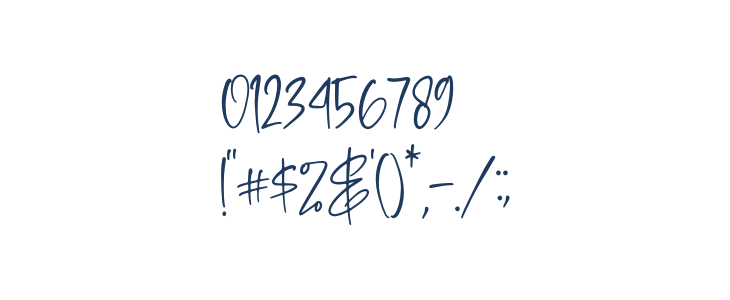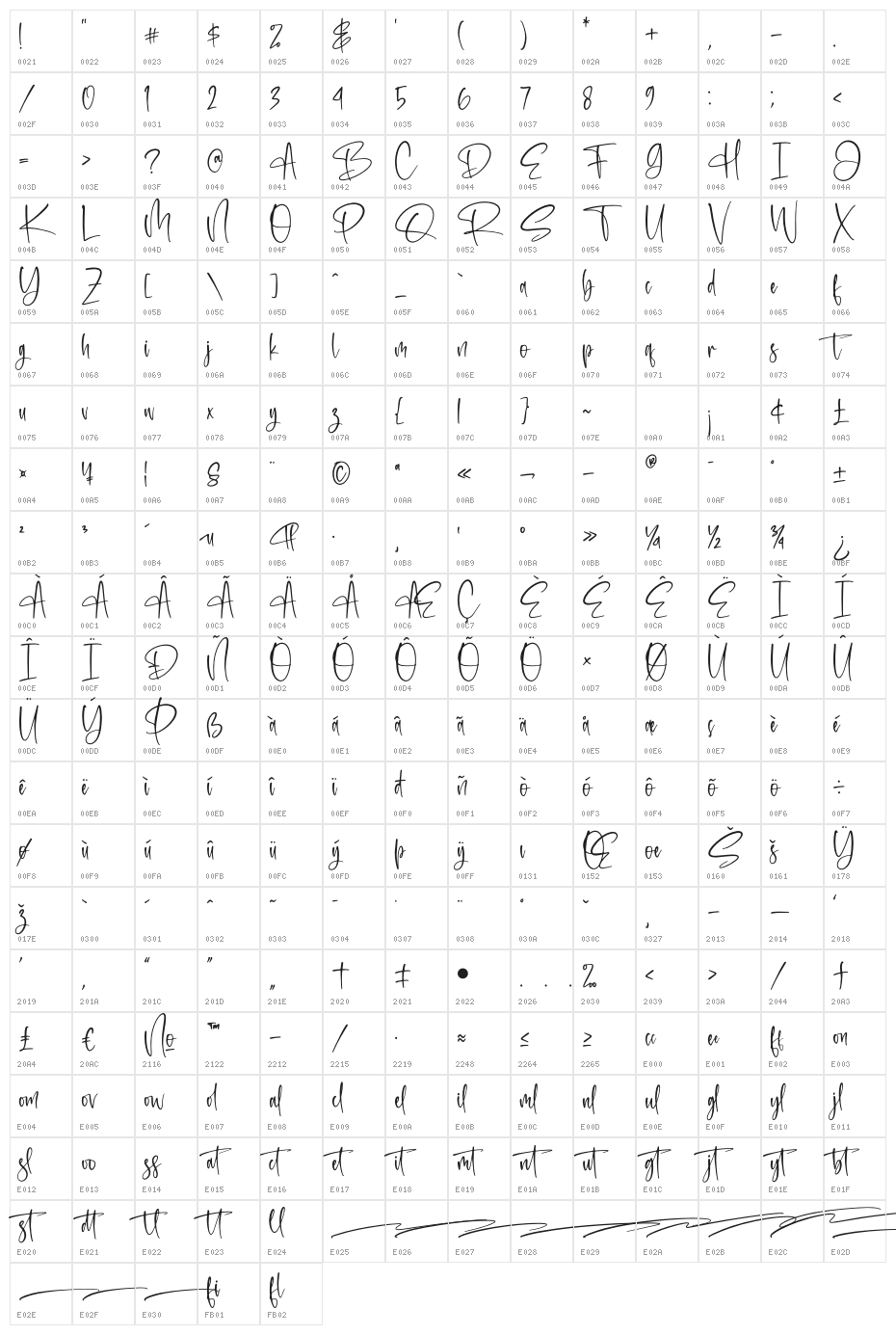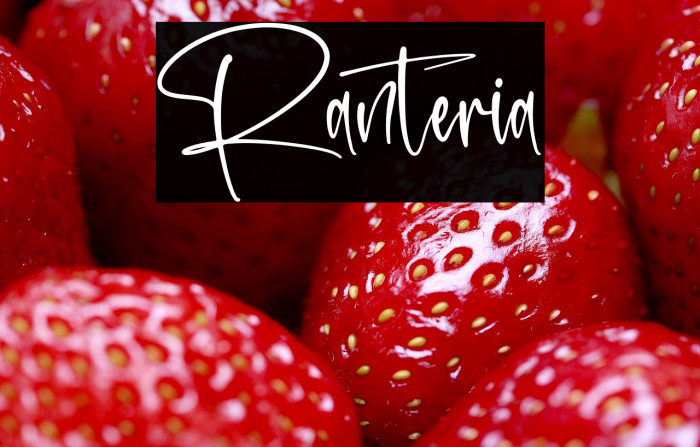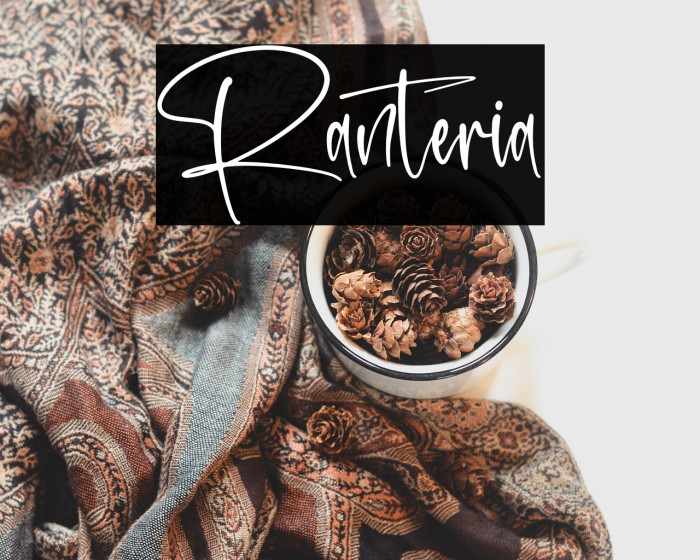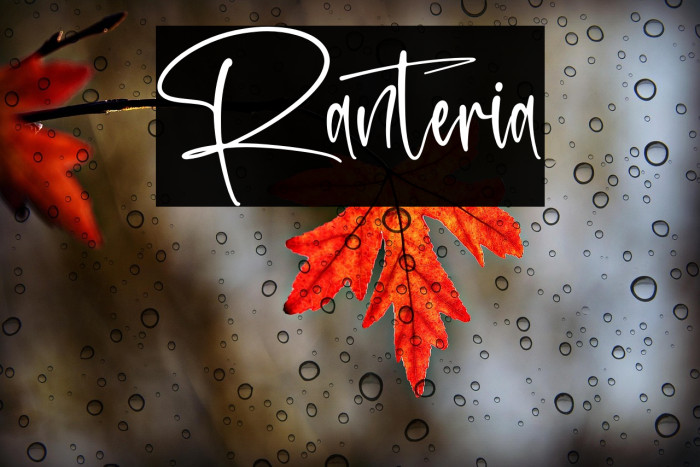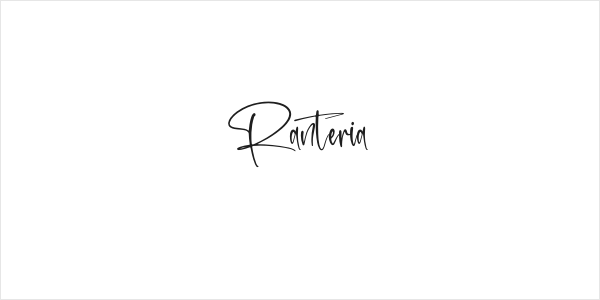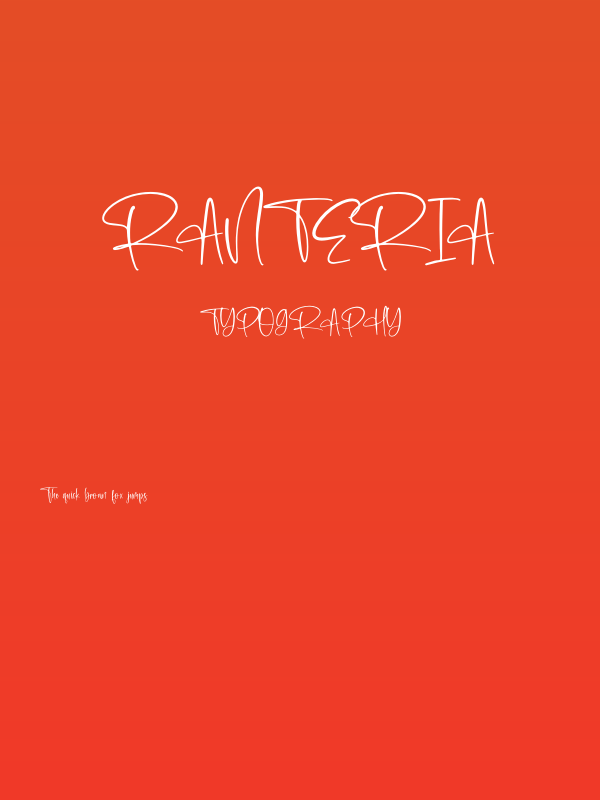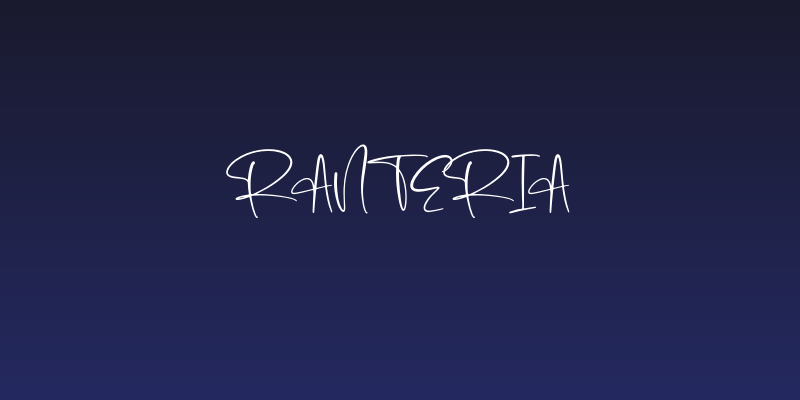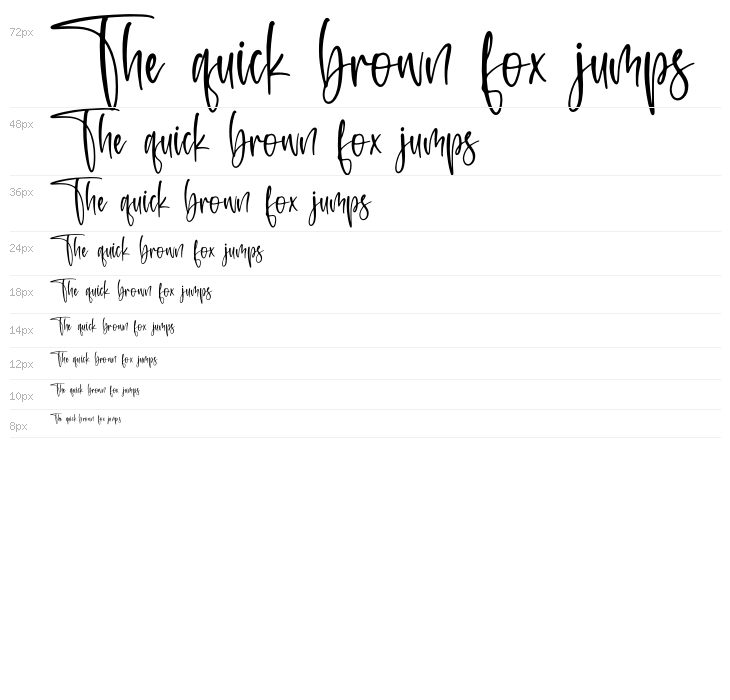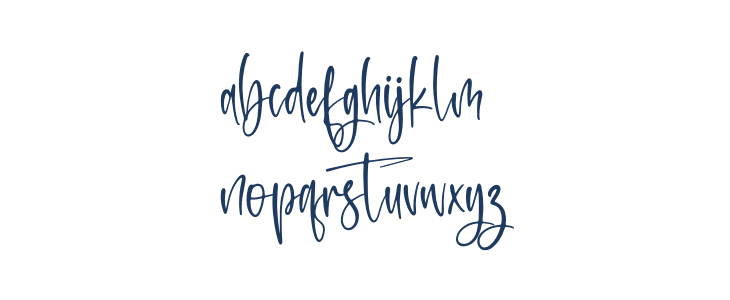
Ranteria Font
Ranteria Description
This font features an expressive and dynamic handwritten style, characterized by its fluid and flowing letterforms. The uppercase letters are bold and slightly irregular, giving a sense of spontaneity and artistic flair. The lowercase letters maintain a consistent rhythm, with elongated ascenders and descenders that add to the font's unique personality. Numbers and special characters are crafted with the same attention to detail, ensuring a cohesive look across all glyphs. The overall design is both playful and sophisticated, making it suitable for a variety of creative applications.
Use CaseLogos, Invitations, Artistic projects
Proposed ProjectsIdeal for branding, invitations, greeting cards, and artistic projects that require a personal touch.